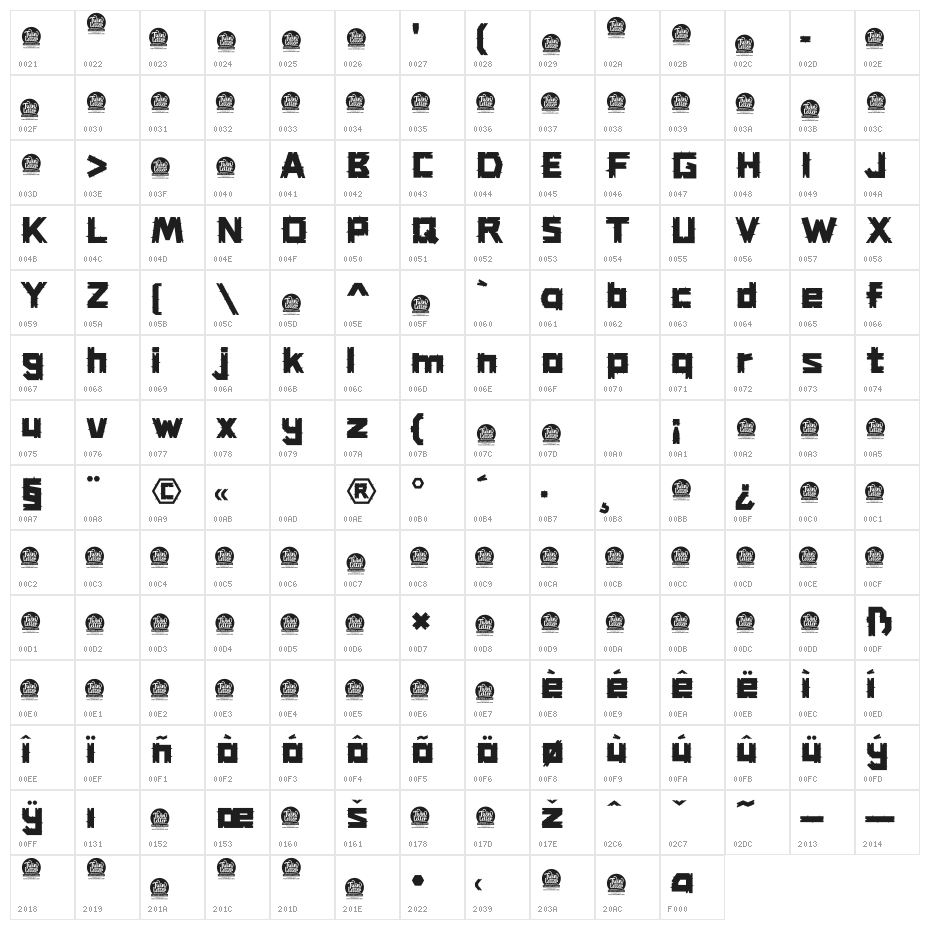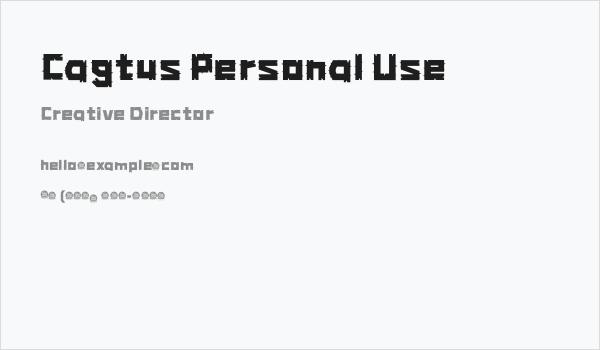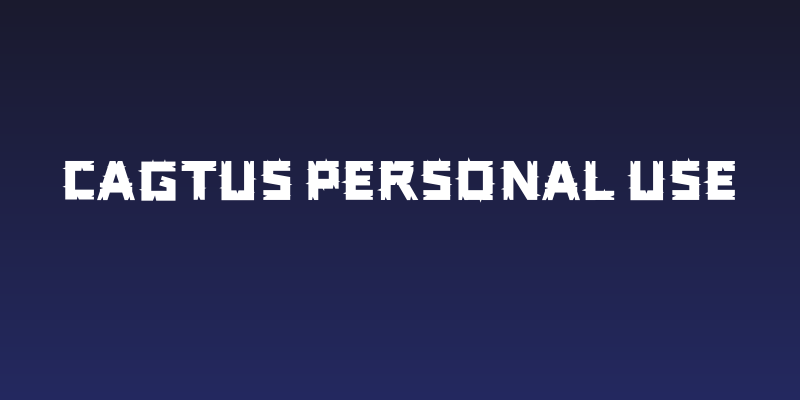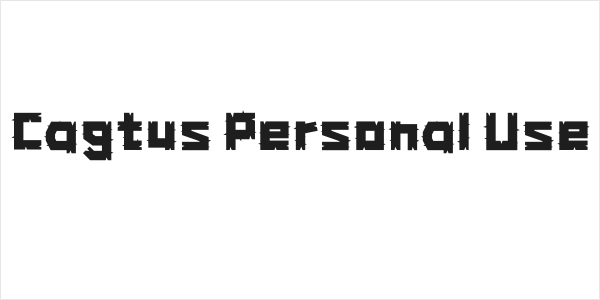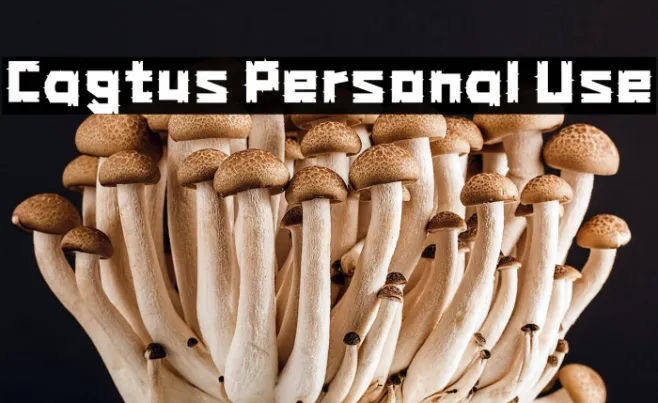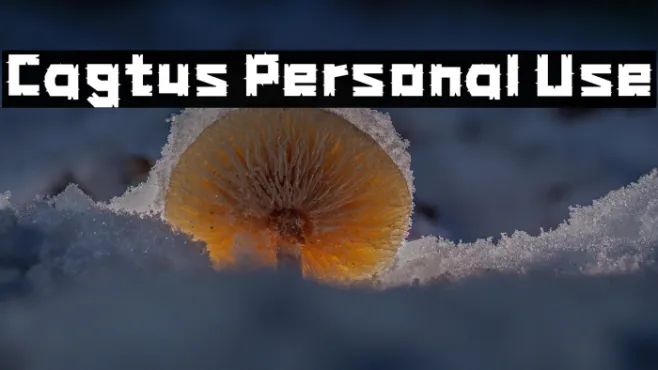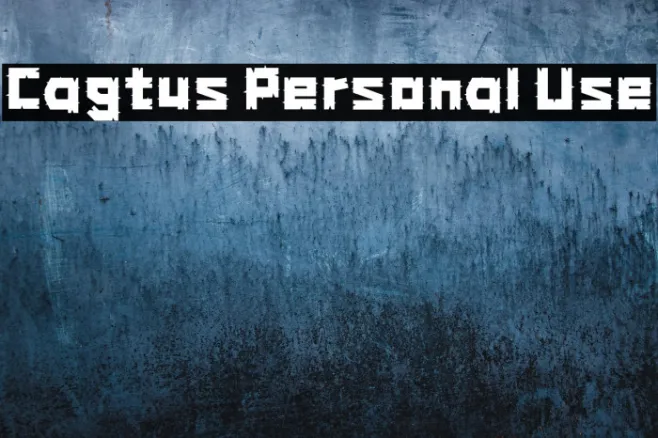
Cagtus Personal Use Font
Cagtus Personal Use Description
This font features a bold and edgy design with sharp, angular shapes that create a rugged and dynamic appearance. The characters are constructed with a blocky, geometric style, giving them a modern and industrial feel. The uppercase and lowercase letters maintain a consistent aesthetic, with jagged edges and a strong presence. The numerals and special characters follow the same design principles, ensuring a cohesive look across all elements. This font stands out with its unique and striking visual impact, making it suitable for projects that require a bold statement.
| Proposed Projects | Ideal for posters, album covers, video game graphics, and branding that requires a bold, industrial look. |